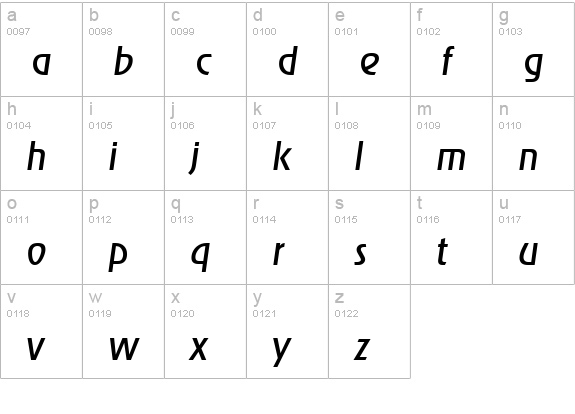
OnStageSerial-Italic Font Details
OnStageSerial-Italic is a distinctive, italic variant in the OnStageSerial typeface family \xE2\x80\x94 well suited to design and typography projects.
OnStageSerial-Italic is a stylish and elegant font perfect for adding a touch of sophistication to any design project. With its graceful slanted style, this font exudes a sense of drama and flair. The italicized characters bring a sense of movement and dynamism, making OnStageSerial-Italic ideal for conveying a sense of excitement and energy. This versatile font is perfect for a variety of uses, from branding and marketing materials to invitations and social media graphics. Its sleek and modern design will make your text stand out and leave a lasting impression on your audience. Best of all, OnStageSerial-Italic is available for free download at FontsMarket.com. So whether you're a designer looking to add a new font to your collection or a business owner in need of a fresh look for your brand, OnStageSerial-Italic is the perfect choice. Download it today and elevate your designs with this stunning typeface.